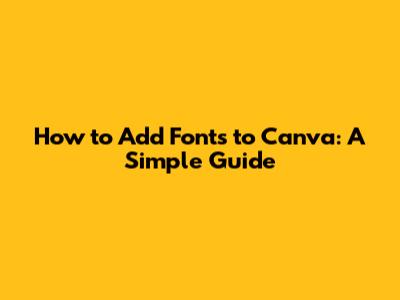
- Brand Consistency: If you're building a brand, you likely have specific fonts that define your visual identity. Using those exact fonts in all your designs, including your Canva creations, is crucial for maintaining a consistent and professional look. Think of it as your brand's signature.
- Unique Style: Sometimes, the fonts available in Canva just don't cut it. Maybe you're looking for something more artistic, quirky, or specialized for a particular project. Uploading your own fonts lets you express your unique style and stand out from the crowd.
- Access to a Wider Variety: While Canva's font library is impressive, it's not exhaustive. There are countless amazing fonts available online, both free and paid. Uploading them to Canva opens up a whole new world of typographic possibilities.
- Client Requirements: If you're a designer working with clients, they may have specific font requirements that you need to adhere to. Being able to upload custom fonts ensures that you can always meet their needs and deliver designs that are on-brand and on-point.
- Consider Your Brand: Your fonts should reflect your brand's personality and values. If you have a serious and professional brand, choose clean and classic fonts. If you have a more playful and creative brand, you can experiment with more unique and decorative fonts.
- Think About Readability: Make sure your fonts are easy to read, especially for body text. Avoid using overly decorative or stylized fonts for large blocks of text. Sans-serif fonts are generally more readable than serif fonts on screens.
- Use Font Pairings: Combining different fonts can add visual interest to your designs. A good rule of thumb is to pair a display font (for headings) with a more readable font (for body text). You can find font pairing suggestions online or use a font pairing tool.
- Don't Overdo It: Stick to a maximum of two or three fonts in your design. Using too many fonts can make your design look cluttered and confusing.
- Test and Iterate: Experiment with different fonts and see what works best for your design. Don't be afraid to try new things and get feedback from others.
Hey guys! Ever felt like Canva's font library, while extensive, just doesn't quite have that special font you need for your project? Maybe it's a specific brand font, a unique typeface you found online, or just something that screams you. Well, guess what? You can totally upload your own fonts to Canva! It's a game-changer for branding, consistency, and just plain creative freedom. Let's dive into how you can make your Canva designs even more personalized by adding your own fonts.
Why Add Custom Fonts to Canva?
Okay, so why bother adding fonts to Canva when it already has tons? Here's the lowdown:
Adding custom fonts to Canva basically gives you more control, more flexibility, and more opportunities to create stunning designs that truly represent you or your brand. It's like adding a secret ingredient to your creative recipe!
Step-by-Step: Uploading Fonts to Canva
Alright, let's get down to the nitty-gritty. Here's how to upload your own fonts to Canva, step-by-step:
1. Make Sure You Have a Canva Pro Account
This is the first thing you need to know: uploading custom fonts is a Canva Pro feature. Yep, you need to be a paid subscriber to unlock this functionality. If you're serious about branding and want that extra level of customization, Canva Pro is definitely worth considering. It opens a ton of possibilities! You can access the Brand Kit in Canva Pro, and this is where the magic happens, where you can upload your fonts, set your brand colors, and upload your logo.